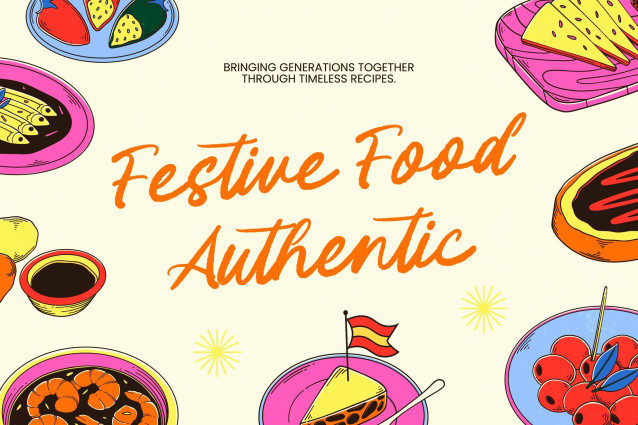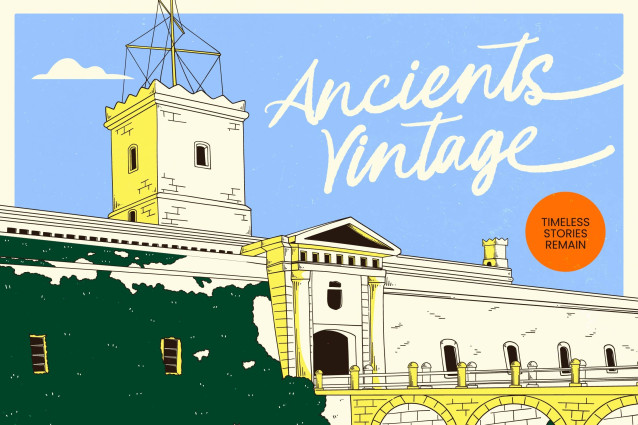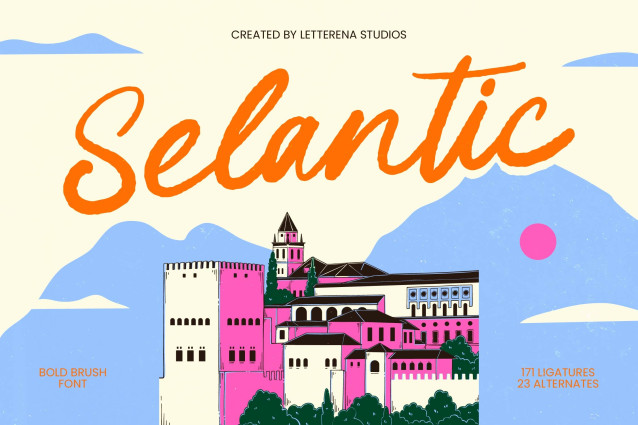
Elevate your creative vision with a typeface that embodies raw energy and sophisticated flair. Selantic – Bold Brush Font is a masterpiece of contemporary hand-drawn typography, designed to command immediate attention. Its fluid strokes and authentic brush texture offer a perfect balance of artistic expression and professional clarity, making it an essential tool for designers seeking a dynamic visual identity and a high-impact aesthetic.
Transform your brand storytelling with the versatile power of high-impact lettering. This expressive script is the ideal application for luxury branding, premium packaging, and impactful editorial design. Whether you are crafting high-end apparel labels, engaging social media graphics, or compelling advertising headers, Selantic – Bold Brush Font is perfect for projects that require a distinctive, human touch that resonates deeply with modern audiences.